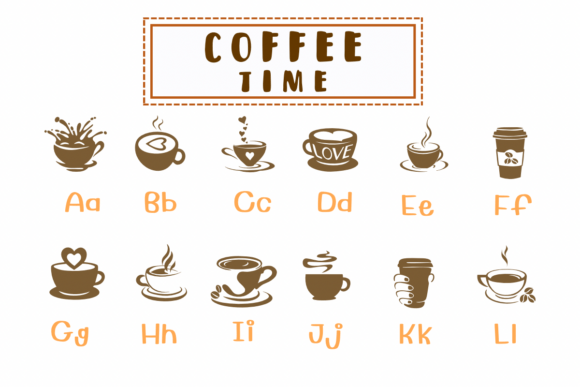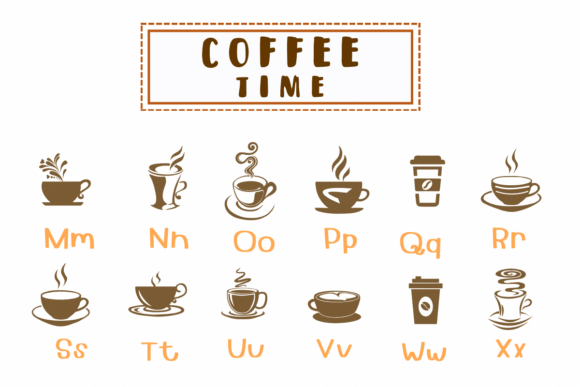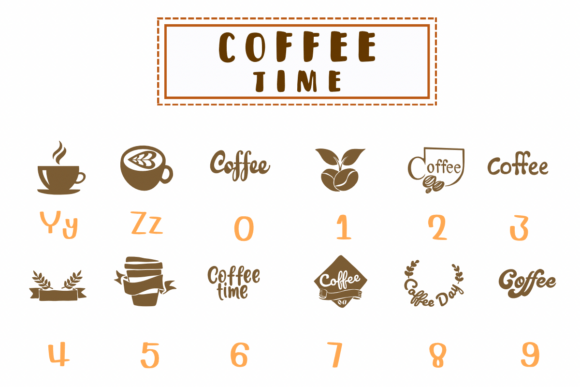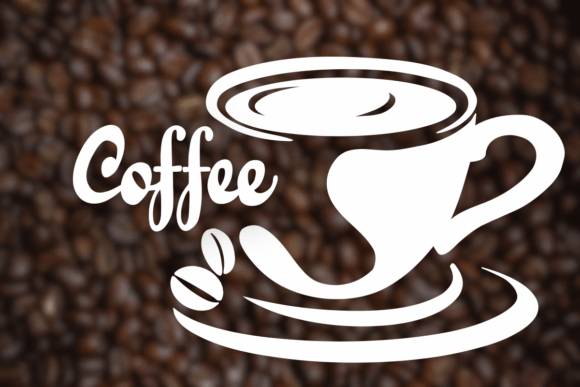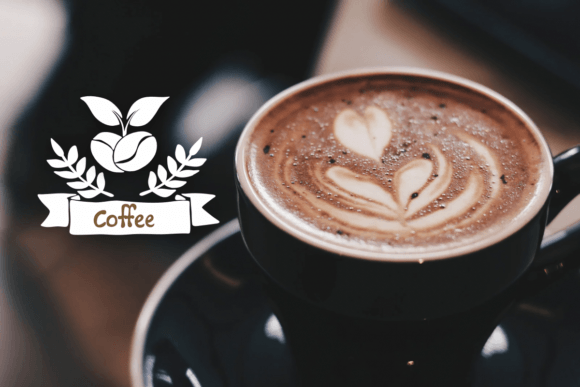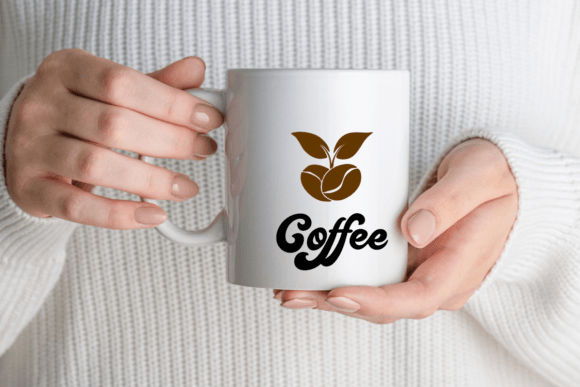
Steep Yourself in Creativity with Coffee Time Font
There’s nothing quite like the feeling of sipping a warm cup of coffee on a chilly morning, is there? It’s the perfect moment to clear your mind, gather your thoughts, and dive into a new project. As you sit at your desk, the aroma of freshly brewed coffee fills the air, and your creative juices start flowing. This is the moment when inspiration strikes, and your ideas begin to take shape.
When it comes to adding a warm, cozy touch to your designs, you need the right tools. That’s where the Coffee Time Font comes in – a fun dingbat font featuring cute coffee cup icons. This delightful font is perfect for adding a personal touch to your projects, from invitations to social media graphics. Whether you’re a designer, artist, or simply someone who loves coffee, the Coffee Time Font is a valuable addition to your creative toolkit.
Coffee Time Font Key Features
- Font Family: A unique, hand-drawn font designed to evoke a sense of warmth and coziness.
- Unique Characteristics: Features a mix of cursive and script elements, with subtle texture and imperfections that add to its charm.
Coffee Time Font Review
Overall, I think the Coffee Time Font is a great addition to any designer’s toolkit, but it’s not without its quirks. ✨ One thing I love is the playful, whimsical feel it brings to any text. The font’s rounded edges and soft lines make it perfect for branding or packaging design.
Another great aspect is the font’s versatility – it’s suitable for both digital and print projects, and it can be used in a variety of contexts, from logos to social media graphics.
- Playful, whimsical feel that’s perfect for branding or packaging design.
- Soft lines and rounded edges that are easy on the eyes.
- Versatility for both digital and print projects.
- Wide range of applications, from logos to social media graphics.
- ⚠️ The font may not be suitable for formal or corporate designs, as it’s a bit too playful for those contexts.
- ⚠️ The font’s spacing and kerning can be a bit inconsistent at times, which may require some manual adjustments.
Overall, I think the Coffee Time Font is a fun and creative option that’s worth considering for your next design project. Just be mindful of its limitations and use it in contexts where it will shine!
For best results, use the Coffee Time Font in conjunction with a background image or color that complements its playful and casual vibe.
Experiment with different font sizes and styles to create visual interest and emphasis.
Coffee Time Font is perfect for:
Food and beverage branding
Home decor and furniture design
Playful and casual advertising
Alternatives to Coffee Time Font
Great Vibes is a modern, elegant script font perfect for adding a touch of sophistication to your designs. It’s ideal for headings, titles, and quotes. When to use: Fashion, lifestyle, and travel designs.
Great Vibes is more elegant and refined compared to Coffee Time Font, making it suitable for high-end designs. It lacks the playful, casual feel of Coffee Time Font.
Alex Brush is a beautiful, handwritten font with a personal touch. It’s perfect for adding a sense of warmth and personality to your designs. When to use: Creative, editorial, and wedding designs.
Alex Brush is more cursive and flowing compared to Coffee Time Font, making it ideal for designs that require a sense of movement and elegance. However, it may not be as versatile as Coffee Time Font.
Carolyna Pro is a modern, sans-serif font with a touch of elegance. It’s perfect for adding a sense of sophistication to your designs. When to use: Corporate, tech, and minimalist designs.
What is the recommended font size and line height for the Coffee Time Font?
The recommended font size for the Coffee Time Font is between 12 and 14 points. For optimal readability, we recommend a line height of at least 1.2 times the font size. This will ensure that the text is clear and easy to read, even at smaller font sizes.